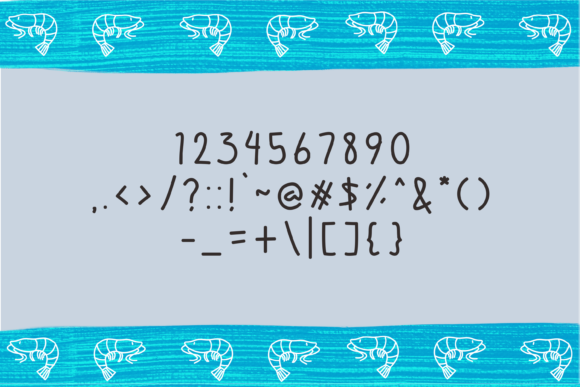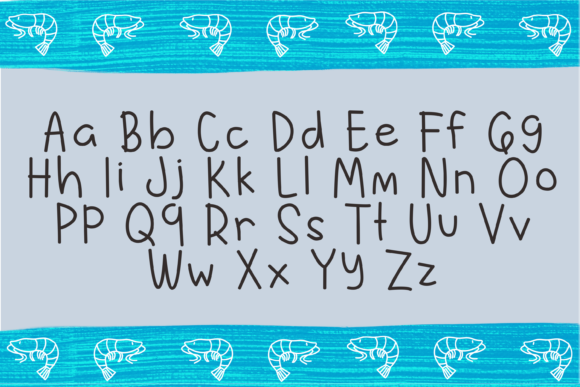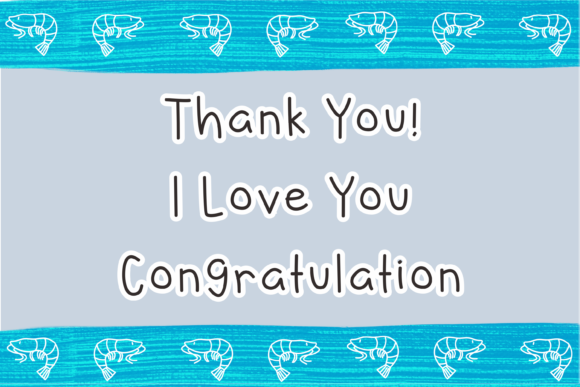
Introduction to Baby Shrimp Font
Baby Shrimp is a cute handwritten font.
Whether youโre looking for fonts for Instagram or calligraphy scripts for DIY projects, Baby Shrimp will turn any creative idea into a true piece of art .
Key Features of Baby Shrimp Font
Why Choose Baby Shrimp Font?
Baby Shrimp Font offers exceptional quality and versatility, making it a valuable addition to your design toolkit. Whether you’re creating for personal projects or commercial use, Baby Shrimp Font delivers professional results.